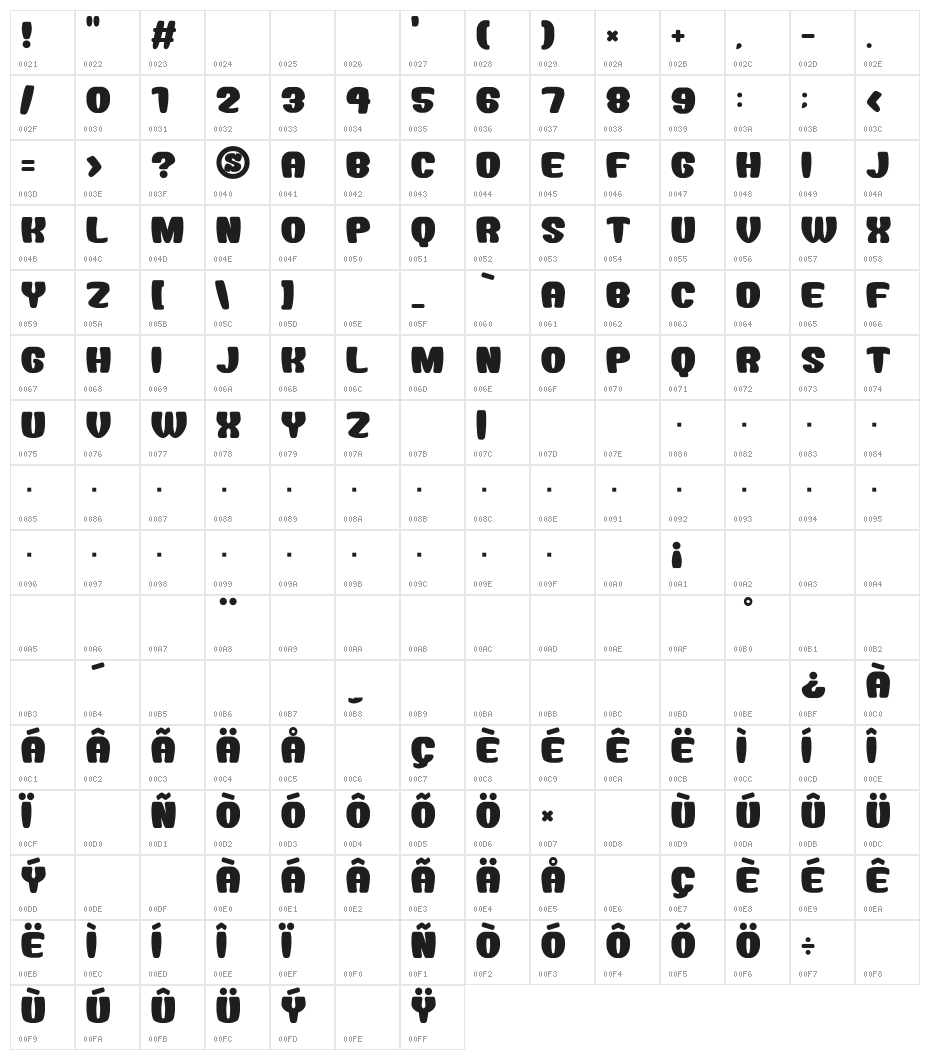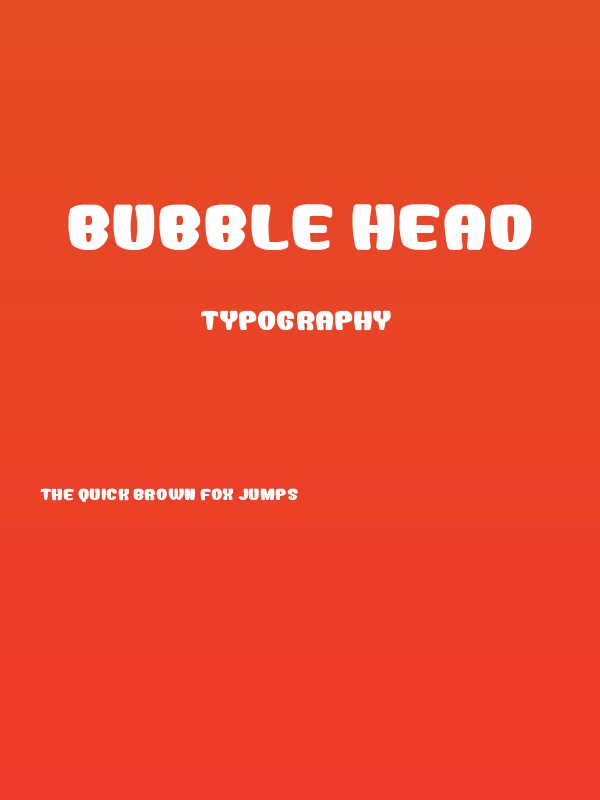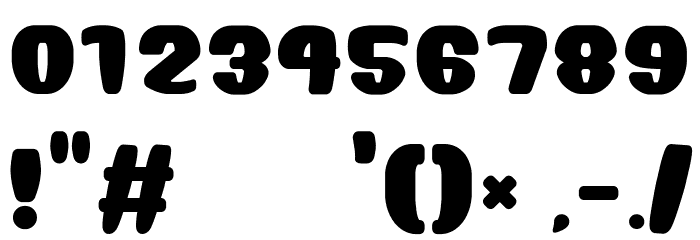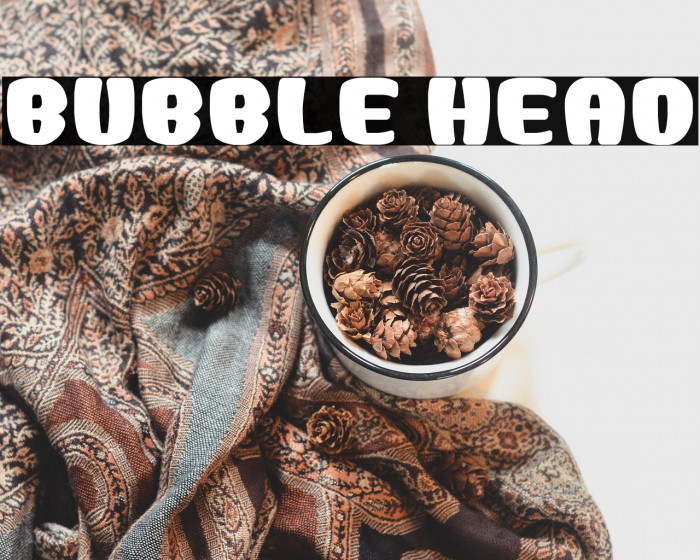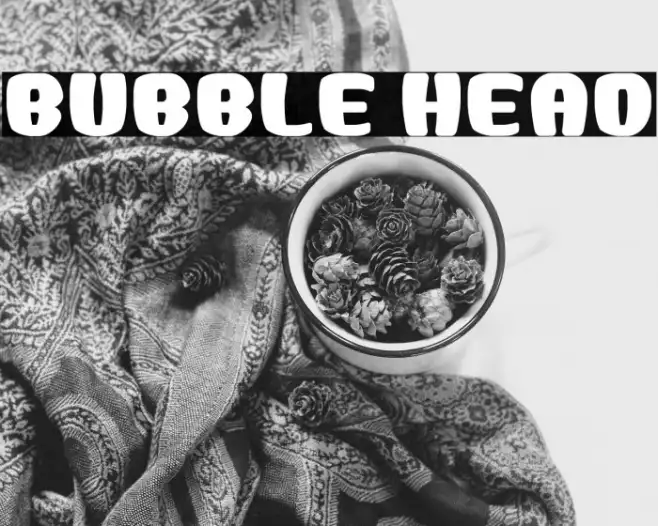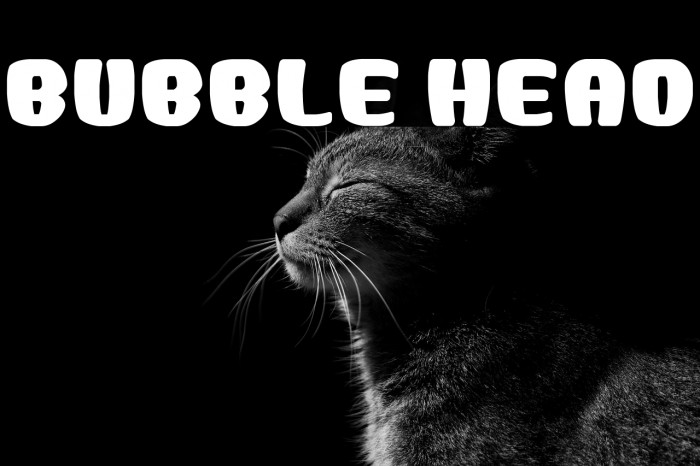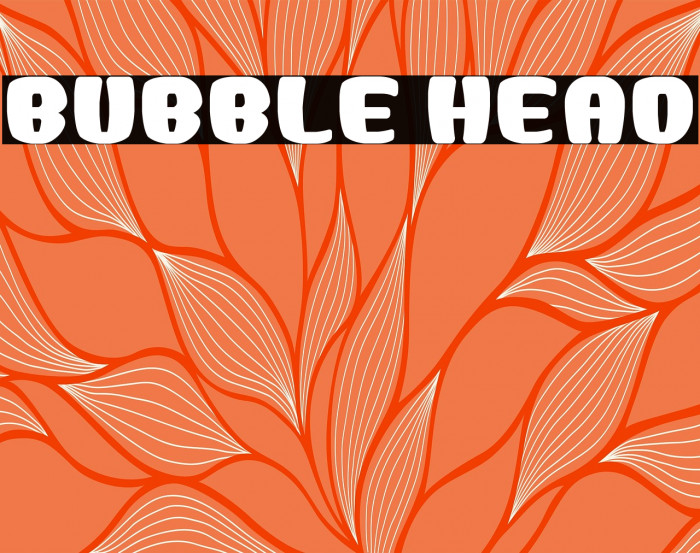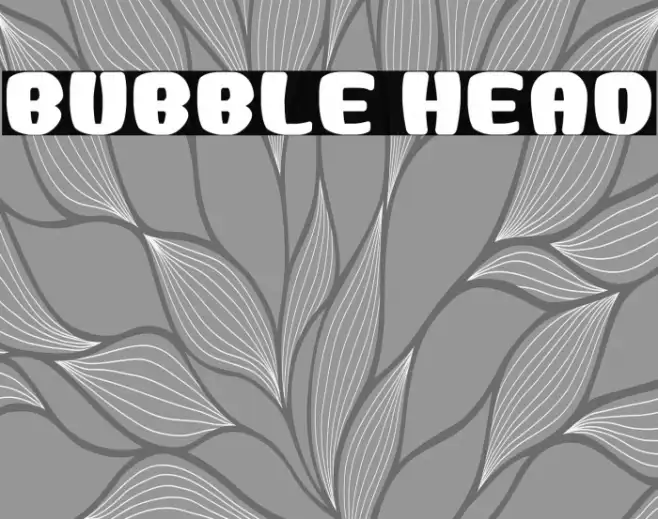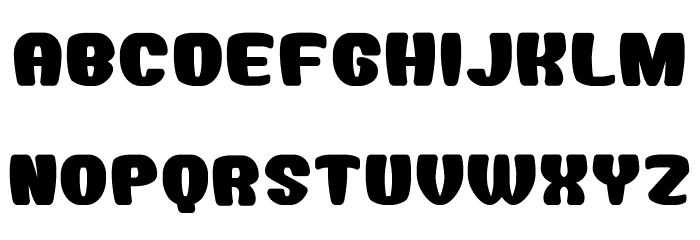
Bubble Head Font
Bubble Head Description
This font features a playful and bold design with rounded, bubble-like characters. Each letter and number is crafted with a thick, uniform stroke that gives it a substantial presence. The characters have a consistent width, contributing to a balanced and cohesive appearance. The font's style is reminiscent of retro or vintage aesthetics, making it ideal for projects that require a fun and engaging look. The special characters maintain the same bubbly style, ensuring uniformity across all text elements.
| Overall Style | Playful, Retro |
| Proposed Projects | Ideal for children's books, playful branding, posters, and party invitations. |